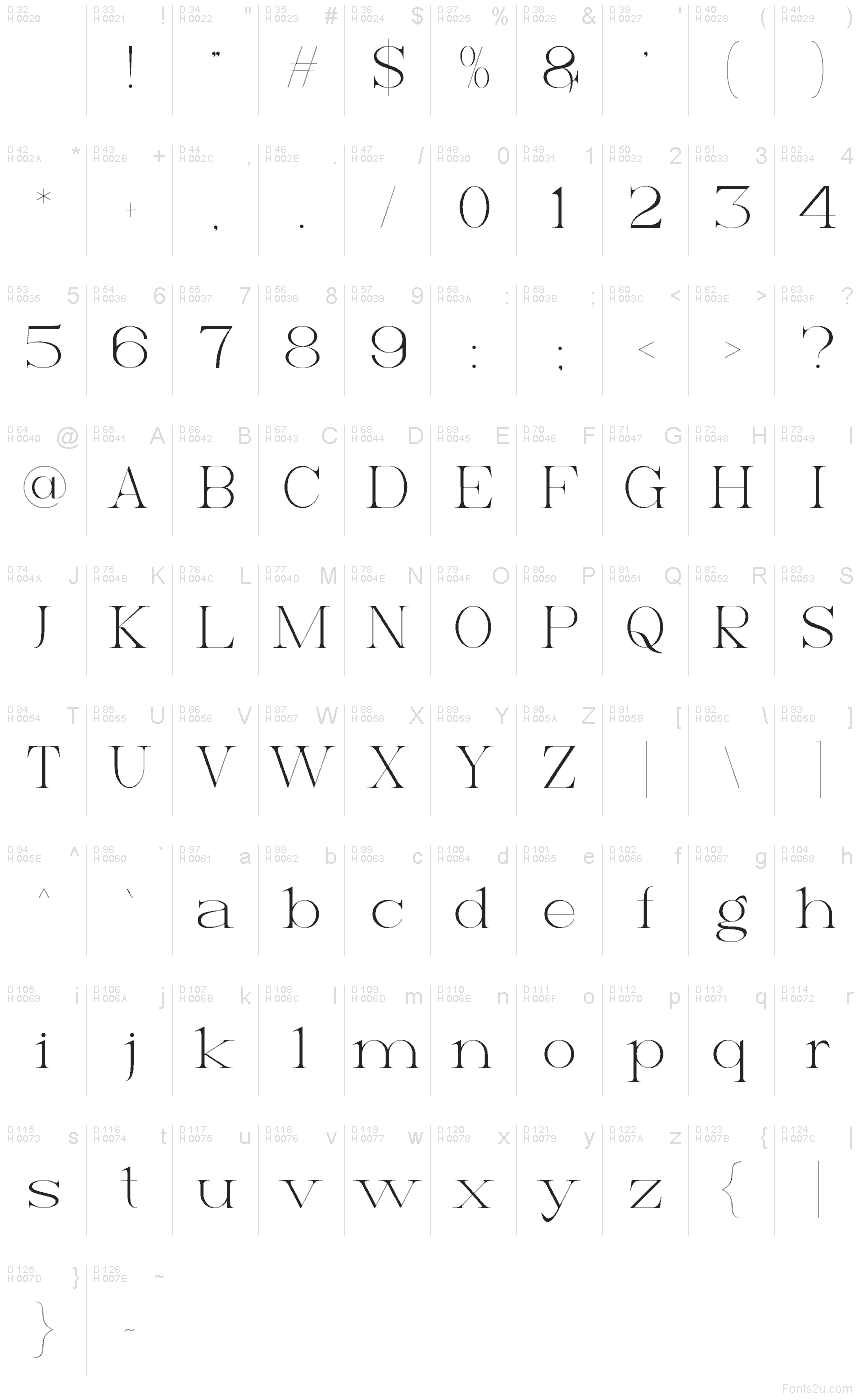
VERIETTA Light
Verietta Light font by Gilang Ternadho is a light serif font with a sleek and modern design. This member of the Verietta family shares some of its aesthetics with its siblings, but stands out with a skinny body that spells power and elegance. It combines geometric influences, modernity, and stylized serifs to appear classy in all contexts.